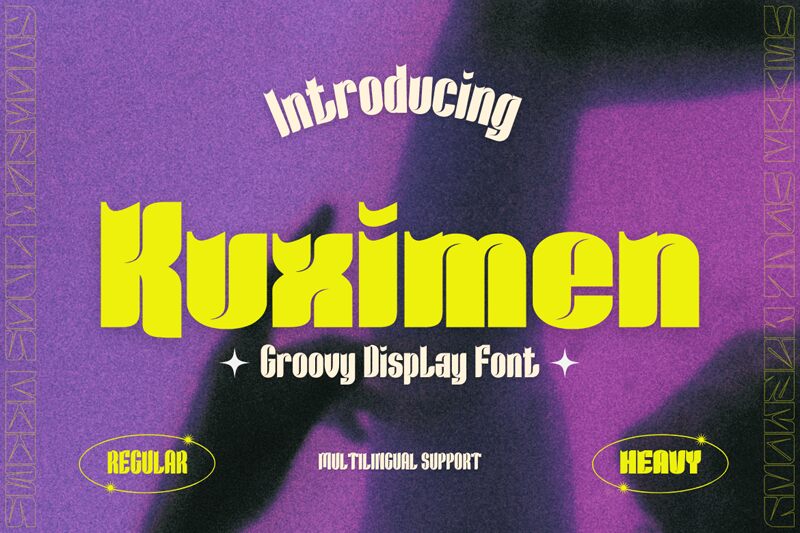
Dive into the retro-futuristic world of Kuximen, a display font that's all about bringing groovy back in style! Designed by twinletter, this bold, condensed typeface is a nod to the psychedelic era with a modern twist. Its elegant geometric shapes and contemporary flair make Kuximen an impeccable choice for designers looking to infuse their projects with a cool, nostalgic vibe while maintaining a fresh aesthetic.
Whether you're crafting bold headlines or looking for that distinctive touch in your branding endeavors, Kuximen stands out. It seamlessly blends the playful essence of the '60s and '70s with sleek design sensibilities of today. Perfect for posters, logos, or any creative work aiming to make a statement – this font isn't just about style; it's about making your designs unforgettable. Embrace Kuximen and watch as your creative projects take on an extraordinary life of their own!
Kuximen